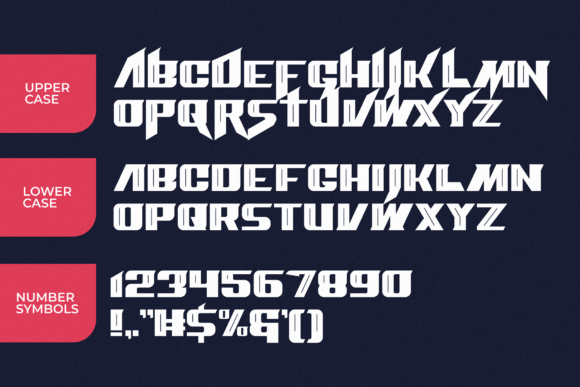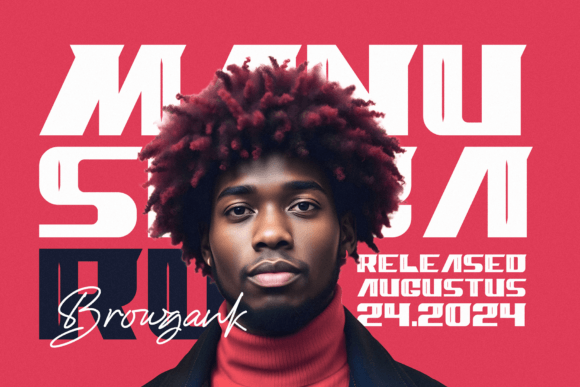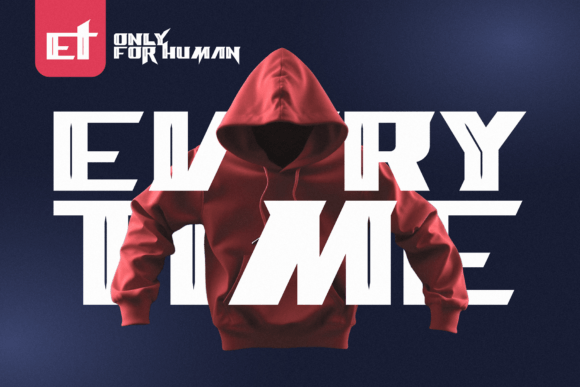
Introduction to Monstarch Font
Remember that moment when you finally land on the perfect design concept, and everything falls into place? The colors are vibrant, the typography is on point, and your message shines through. But, what if you’re missing that one element to take it to the next level? That’s where the Monstarch Font comes in – a powerful bold display font designed to dominate the spotlight and elevate your creative project to new heights.
As a valuable design resource, the Monstarch Font is perfect for making a statement in any design project. With its commanding presence and robust letterforms, it’s sure to grab attention and leave a lasting impression. Plus, with a transparent background, you can easily integrate it into your design without any distractions. Whether you’re a seasoned designer or just starting out, the Monstarch Font is a high-quality addition to your design arsenal.
Key Features of Monstarch Font
- Unique, bold, and playful design perfect for creative projects and design resources.
- High-quality font with transparent background, allowing for seamless integration with any design.
- Perfect for use in logos, branding, and typography-based designs, adding a touch of personality to any creative project.
Honest Review: Monstarch Font
I recently stumbled upon the Monstarch Font and I’m excited to share my thoughts on this design resource. As a designer, I’m always on the lookout for high-quality fonts that can elevate my creative projects. The Monstarch Font did not disappoint.
What doesn’t work well: ⚠️ The font’s size and weight options are a bit limited, which can make it difficult to achieve a consistent look across different designs. Additionally, the font may not be suitable for small text sizes, as it can become difficult to read.
Overall, I’m really impressed with the Monstarch Font. It’s a great addition to any designer’s toolkit and is perfect for adding a bold touch to creative projects. With a bit more development, it could be a top-notch design resource.
- Unique and bold design style
- Transparent background for easy overlay
Tips and Best Practices
To get the most out of the Monstarch Font, consider the following tips:
- Use the font in conjunction with a transparent background to create a unique design effect.
- Experiment with different font sizes and styles to add visual interest to your design.
- Combine the Monstarch Font with other design elements, such as images and graphics, to create a high-quality design.
The Monstarch Font is suitable for a variety of creative projects, including:
- Banner design
- Infographic design